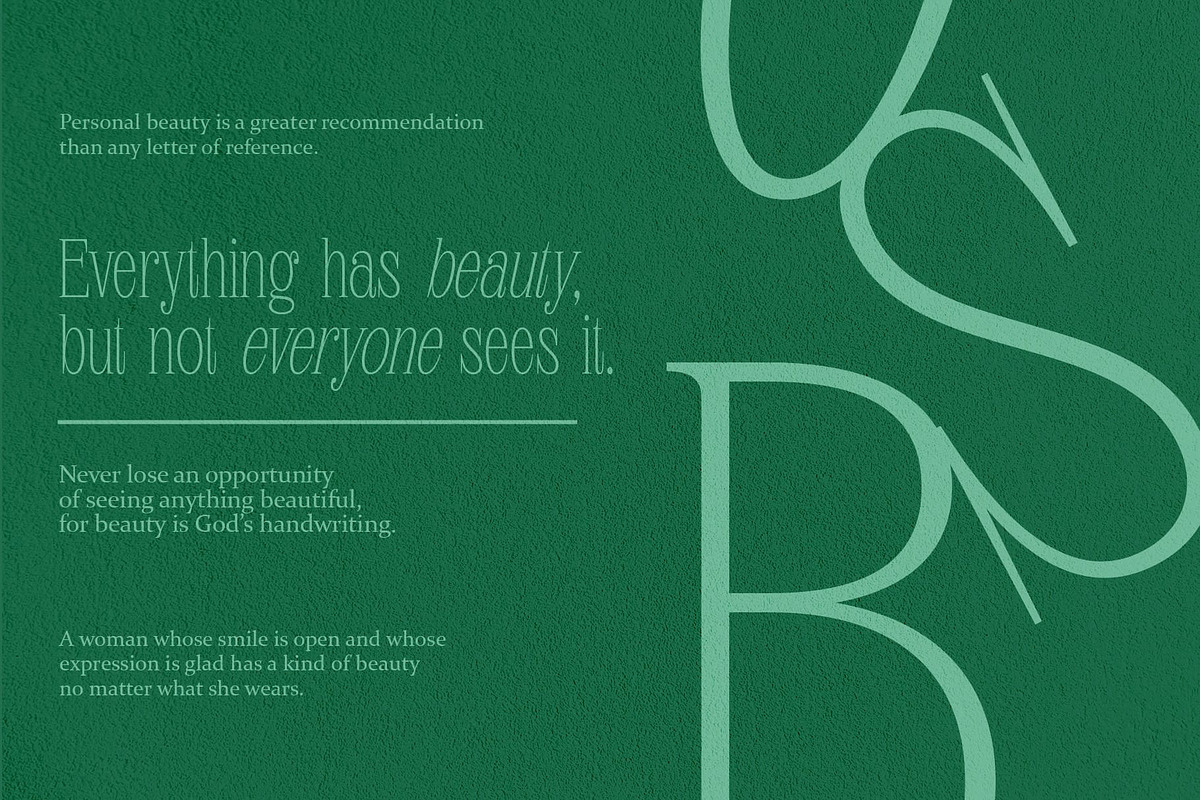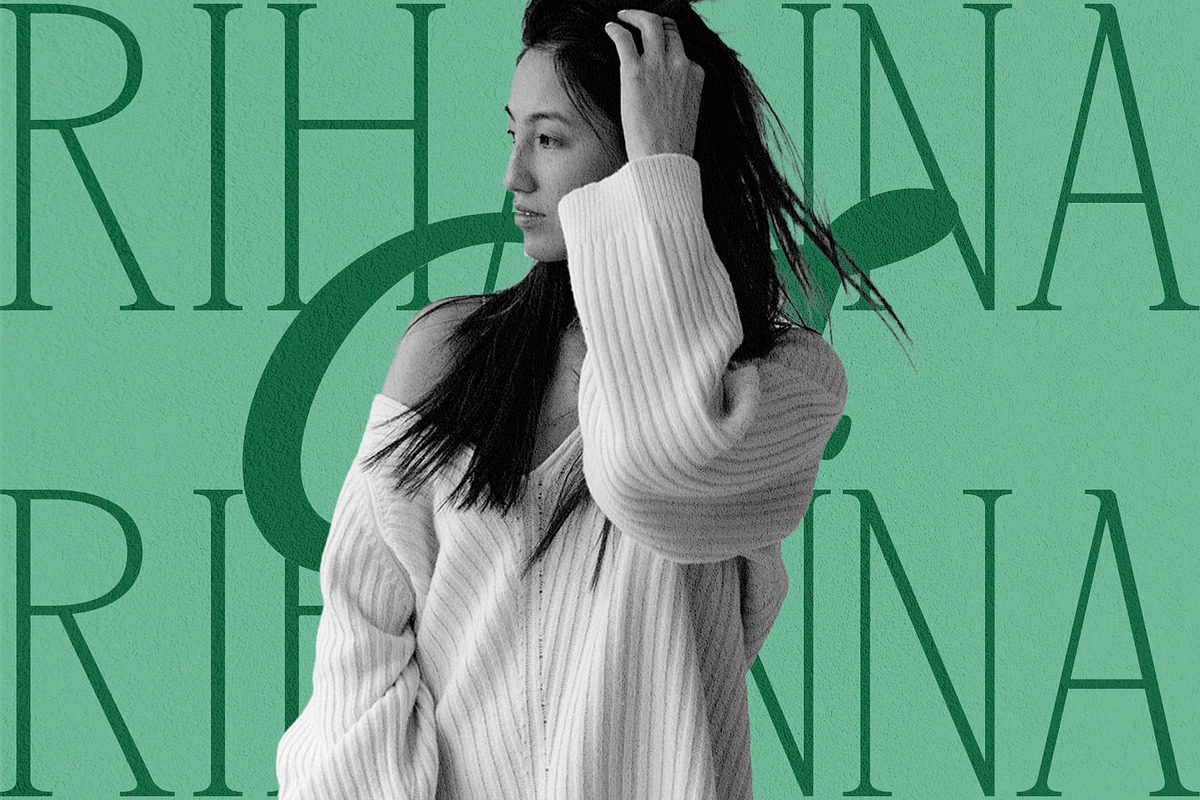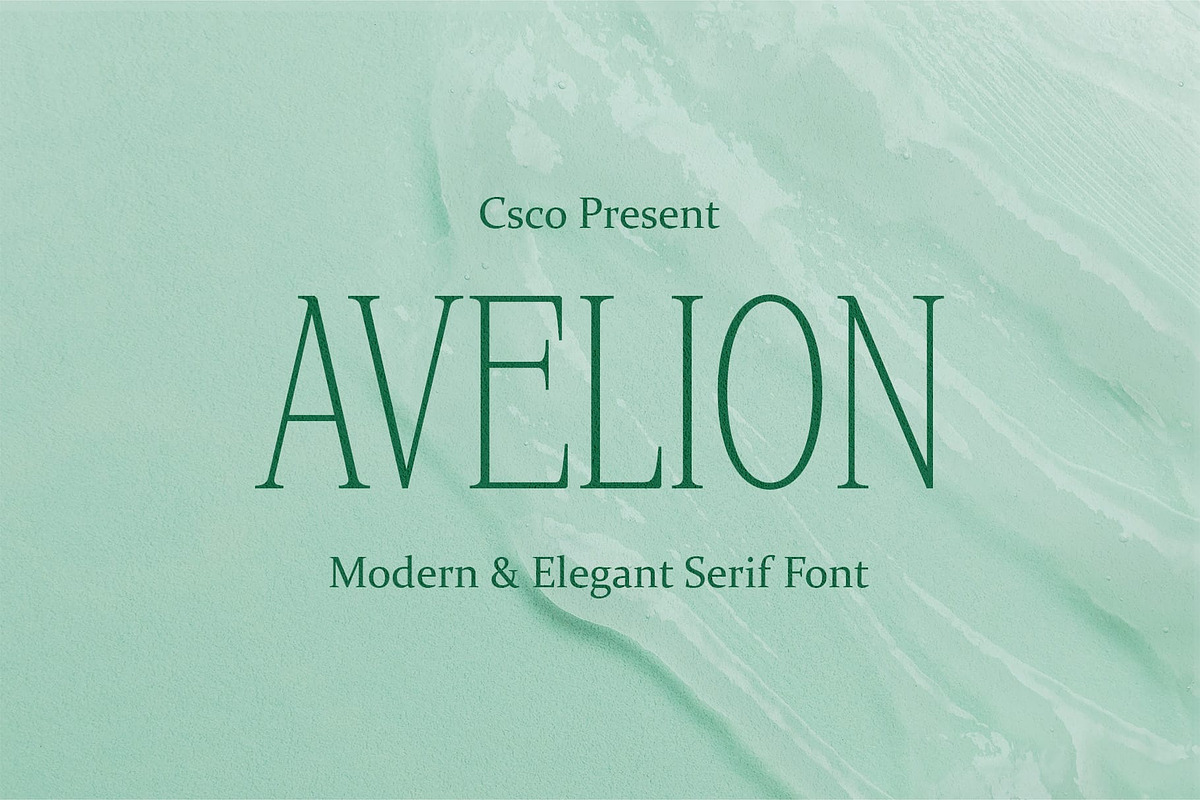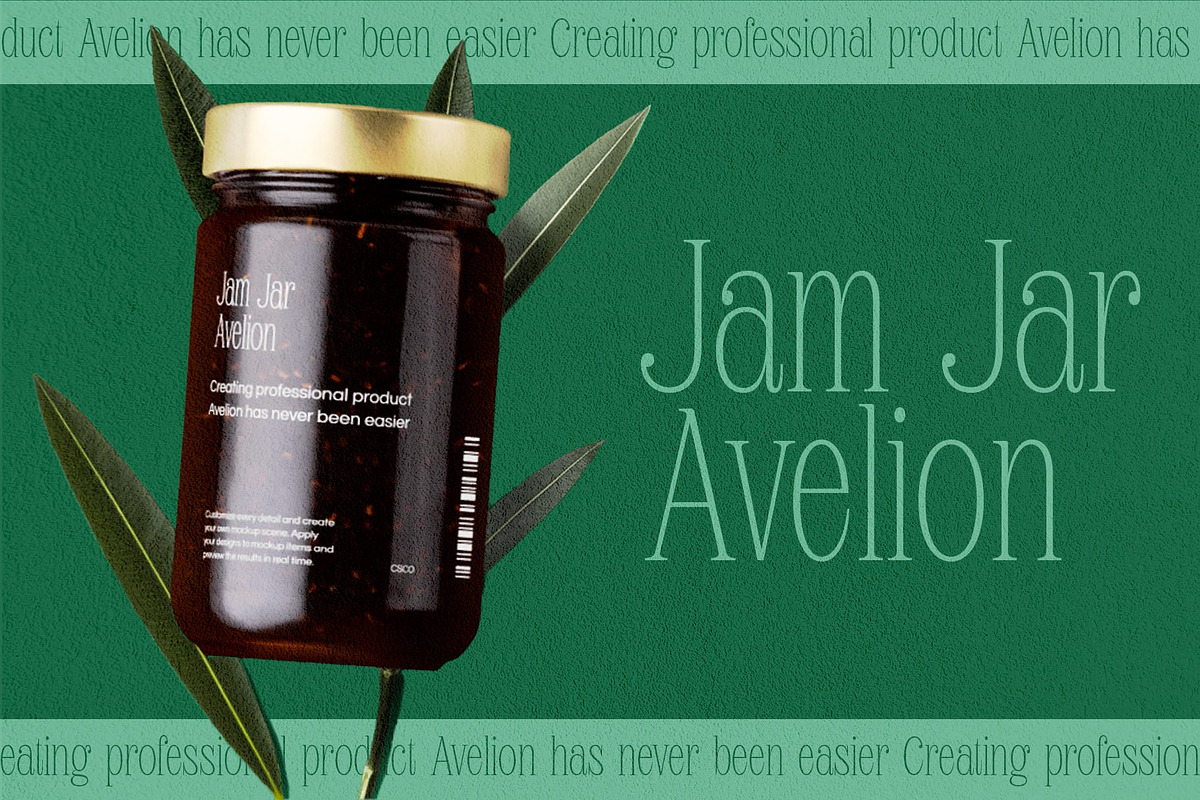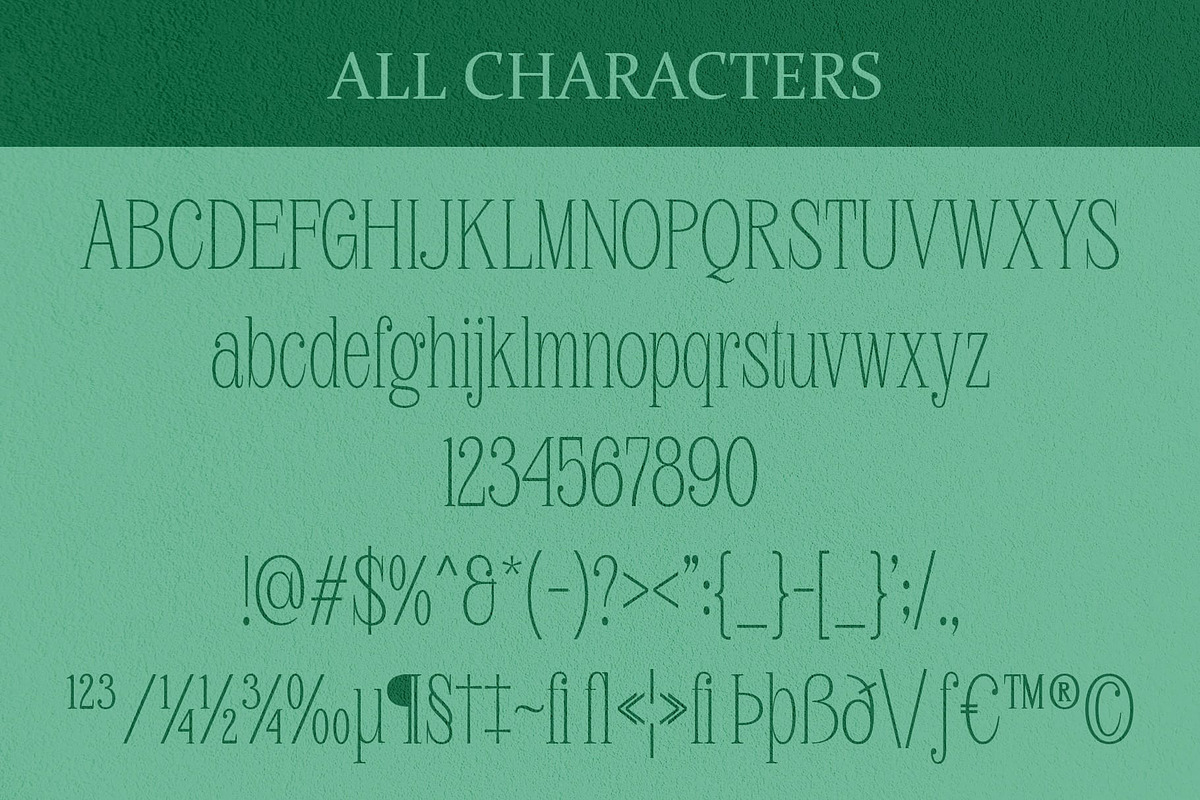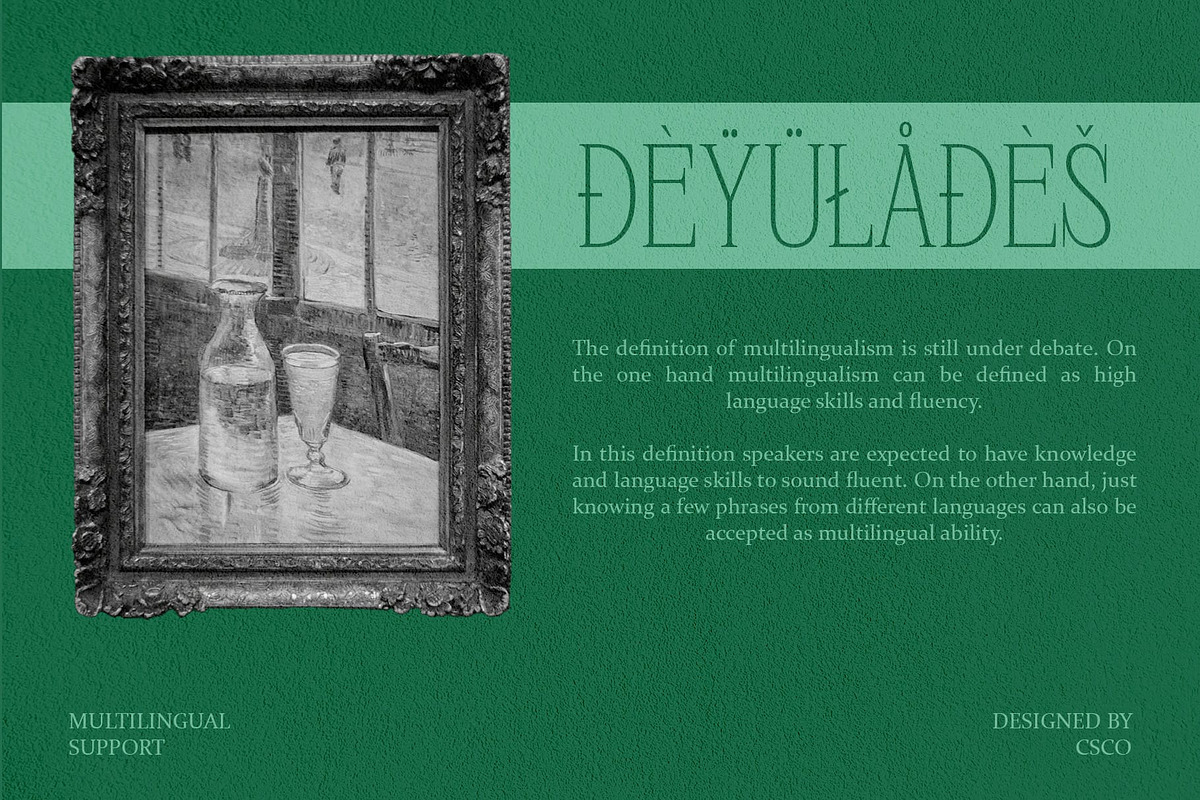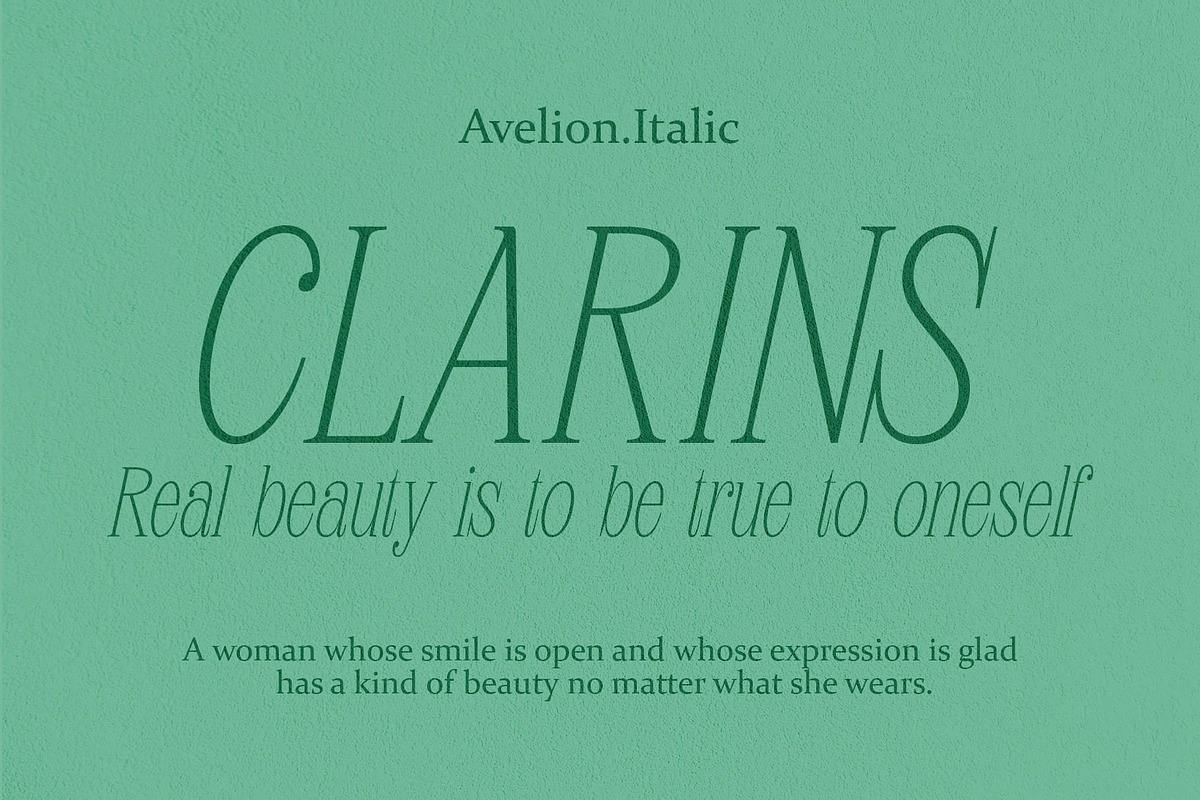
Avelion – Elegant Serif
Avelion Font: The Elegance of Low Contrast Serif
Effortless Harmony Avelion serif, an epitome of elegance, boasts low-contrast strokes and condensed dimensions, effortlessly creating a harmonious aesthetic on any medium.
Timeless Beauty This font’s timeless beauty lies in its ability to strike a perfect balance between delicacy and condensed form, ensuring an enchanting visual experience.
Versatility in Media Avelion transcends traditional boundaries, fitting seamlessly into various media. Its low-contrast strokes maintain legibility, whether on print or digital platforms.
Avelion Unleashed Unleash Avelion’s beauty in editorial designs, branding, or digital content, and witness how its condensed elegance elevates every project to new aesthetic heights.
Conclusion In a world of fonts, Avelion stands out as a paragon of elegance. Its low-contrast strokes and condensed dimensions bring forth a unique harmony, making it a versatile choice for designers across different media landscapes. Experience the beauty of Avelion and redefine elegance in your design endeavors.